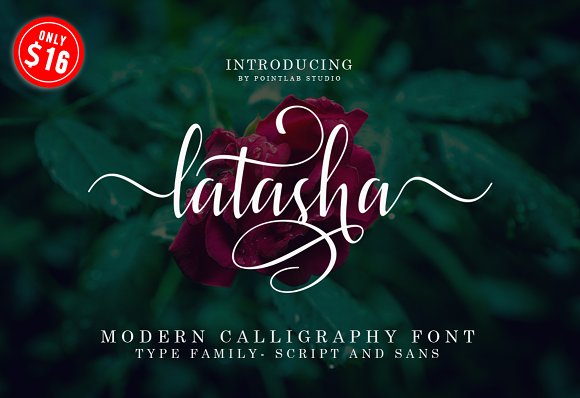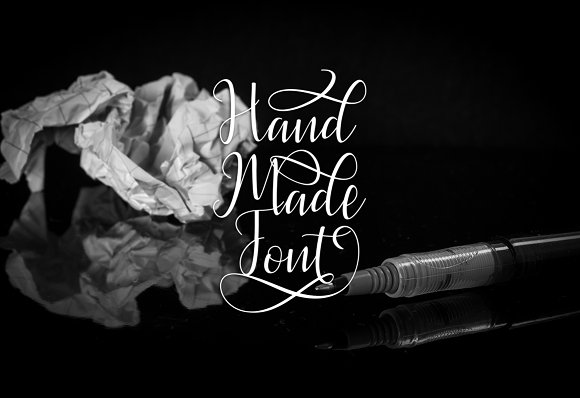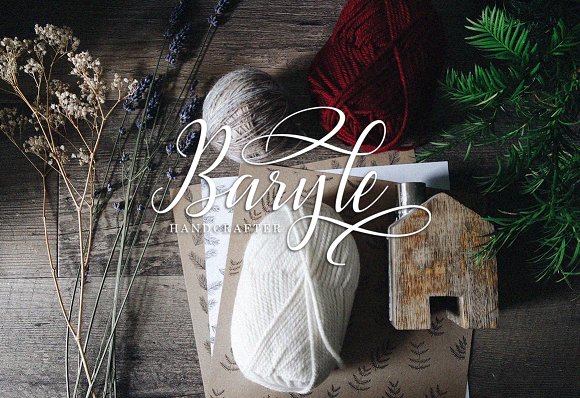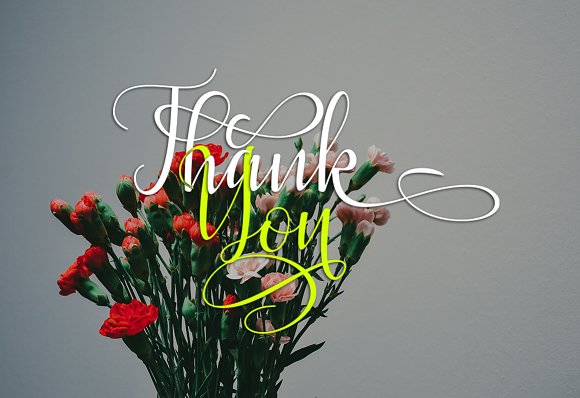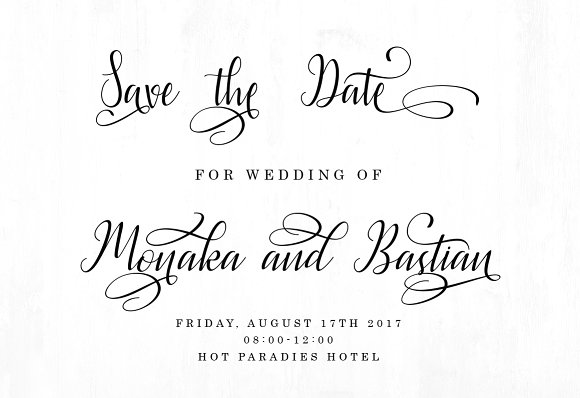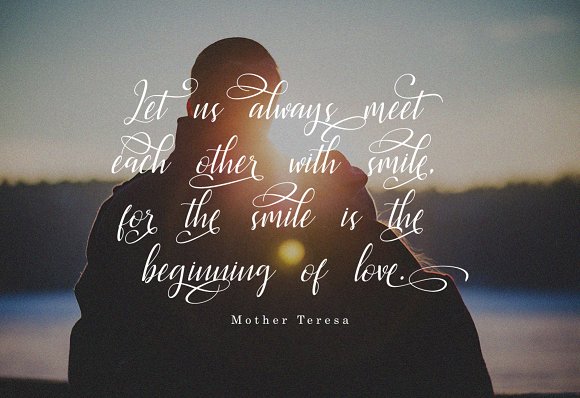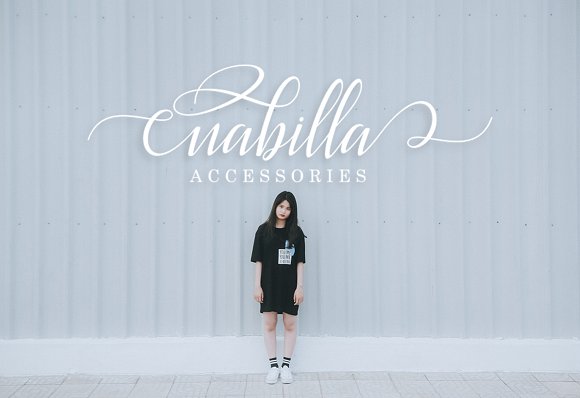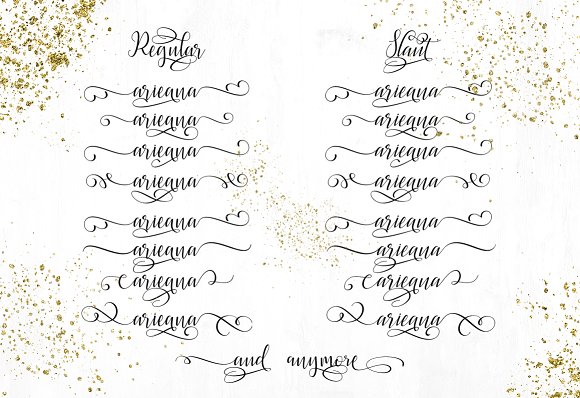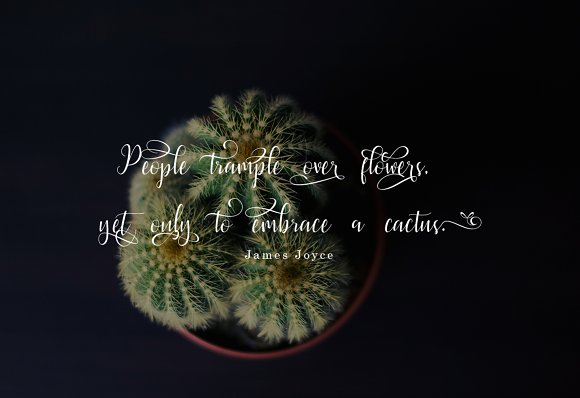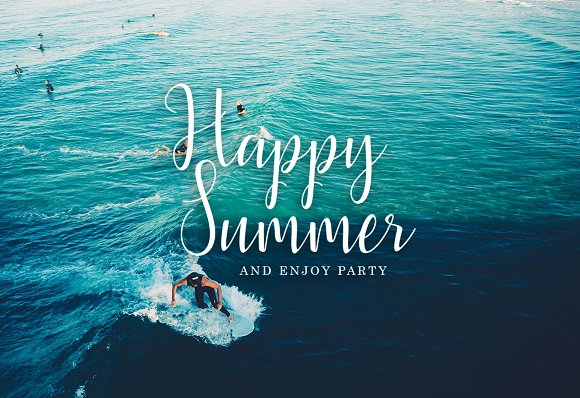
Latasha Font
About Latasha Font
Latasha is a super-extensive script family stuffed with stunning alternates.
The family comes in 6 different weights and versions and is packed with 2245 unique glyphs!